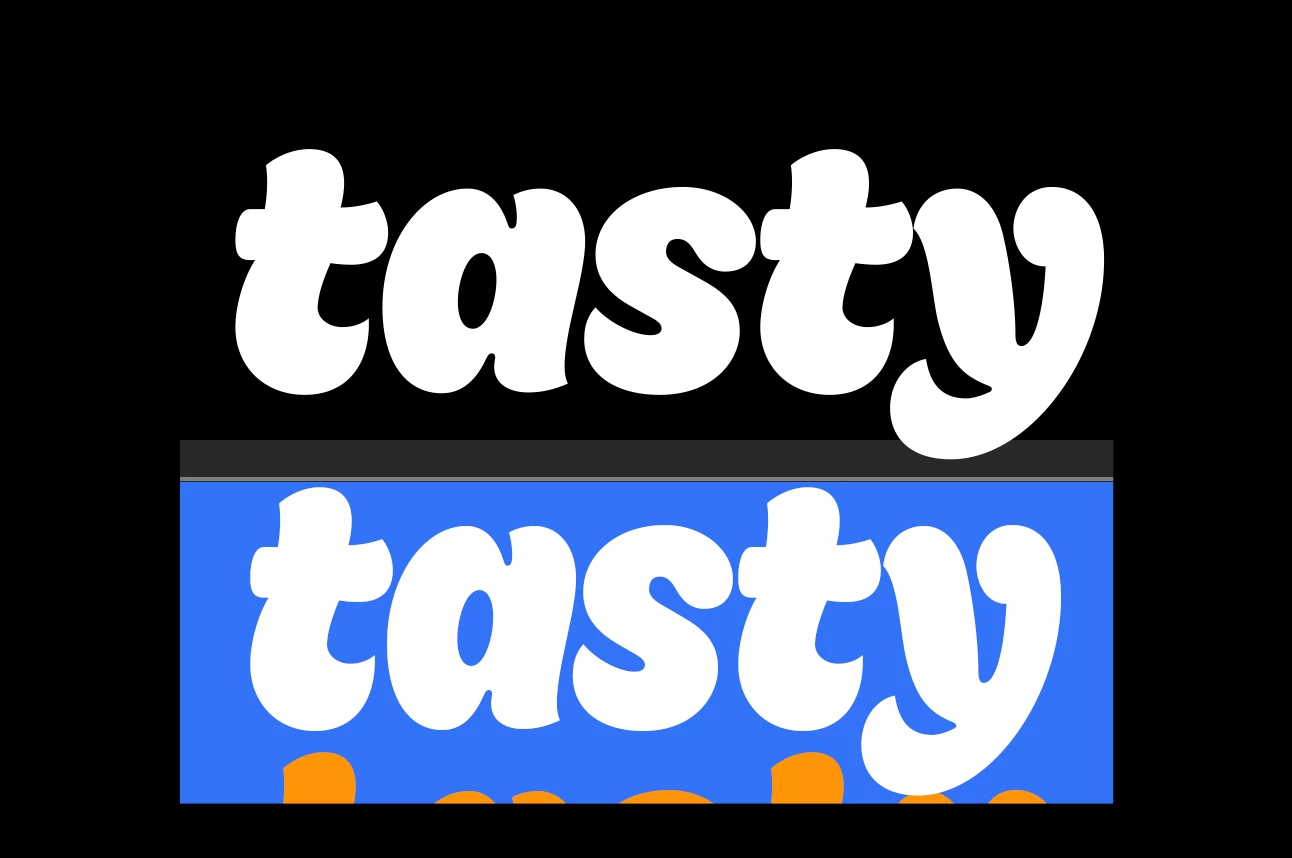
why does this Pillsbury font look slightly fatter/wider in After effects vs Photoshop. Client approved storyboard created in photoshop, but now when going to build it in AE, using exact same variables, the font looks different. any thoughts?
AE on top photoshop on bottom
My first guess would be that there’s a different value set for “Horizontally Scale” in the Character panels.
Is this being recreated manually?  If so, you could import a layered PSD file that contains the “tasty’ Text Layer as a Composition and then with that Layer selected in After Effects choose Layer > Create > Covert to Editable Text.  This should match (fingers crossed).  Another option that should match is to double-click the “tasty” Text Layer in Photoshop to actively select all of the text and then copy and paste that to an empty test layer in After Effects.  The Character settings and the Paragraph settings should be maintained (again, fingers crossed).